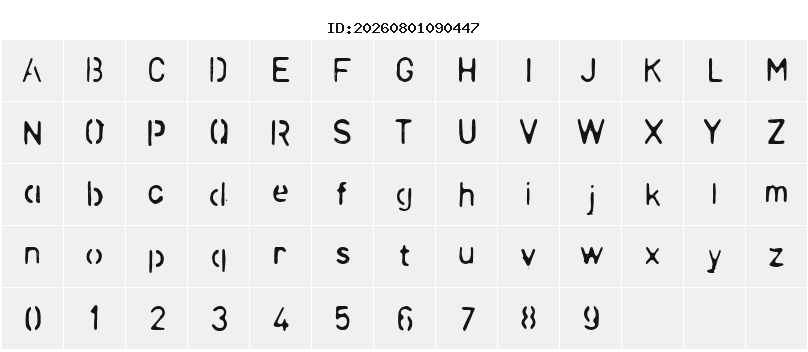
LLChina Preview
• Font Name: LLChina
• Full Font Name: LLChina
About LLChina.ttf
LLChina.ttf is a modern, elegant sans-serif font designed for ultimate readability and visual harmony. Perfect for branding, headlines, web design, and print materials.